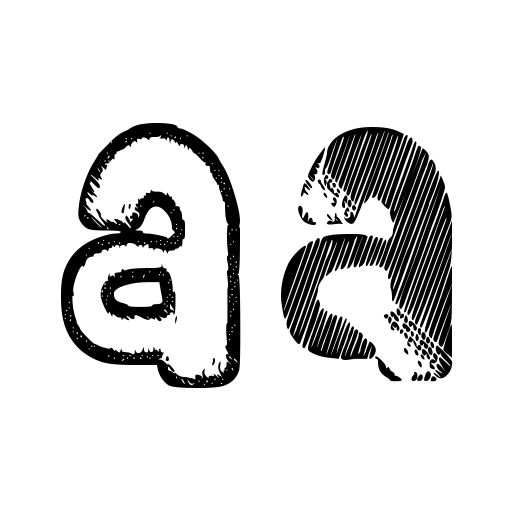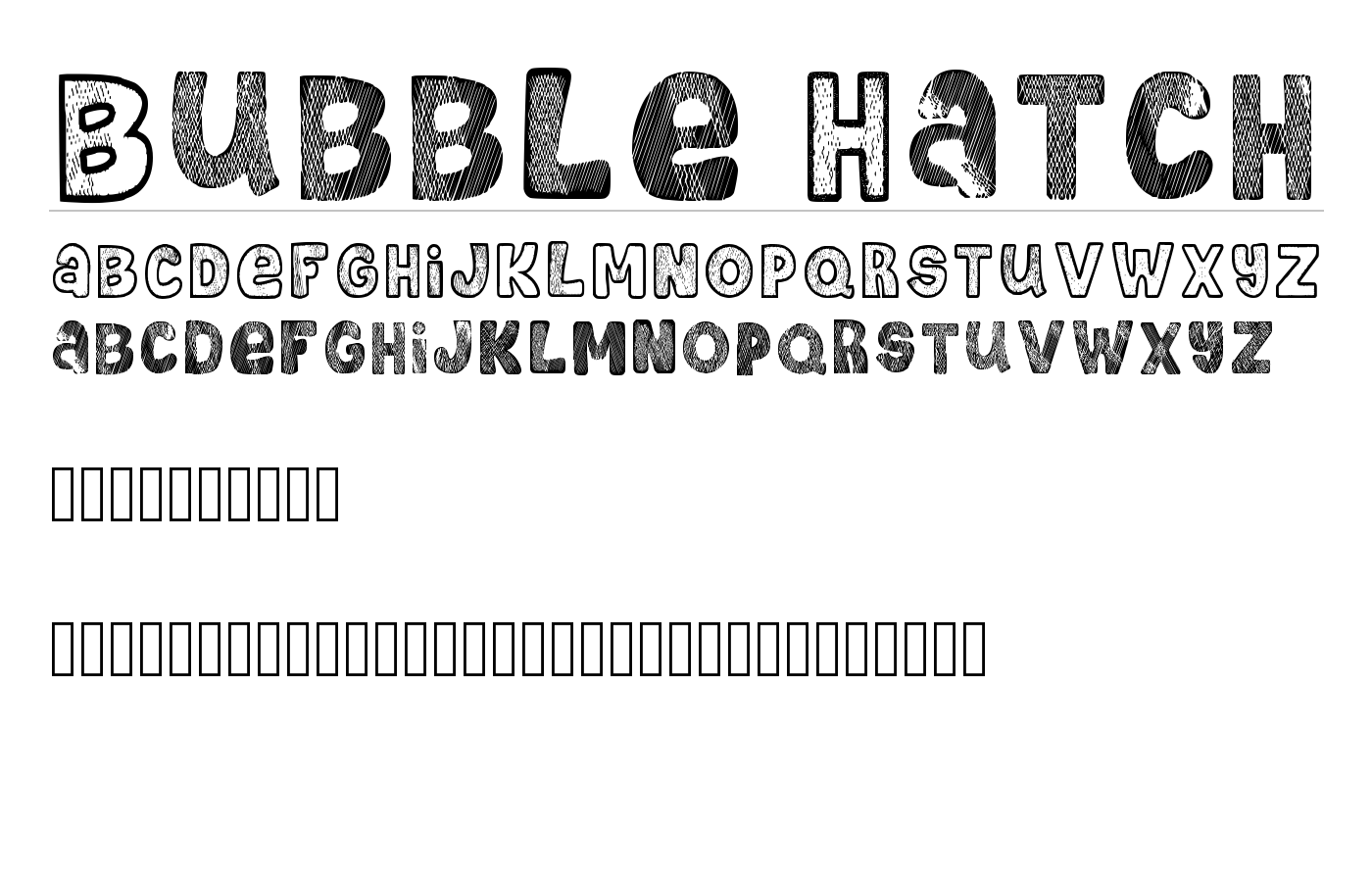
Bubble Hatch is a playful and quirky display font featuring hand-drawn, irregular letterforms filled with varied hatch patterns that add texture and personality. Its casual, chunky shapes convey a fun and creative vibe, making it ideal for eye-catching headlines, children’s designs, or any project that benefits from a lively, artistic touch. This font works best in informal branding, posters, and packaging where a unique hand-crafted feel is desired.
Bubble Hatch Font
About Bubble Hatch Font